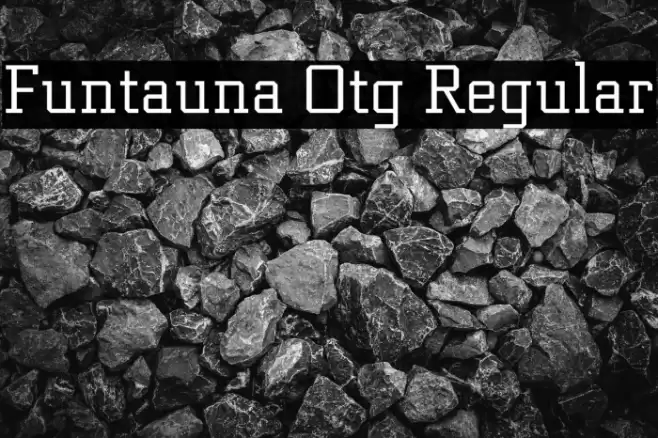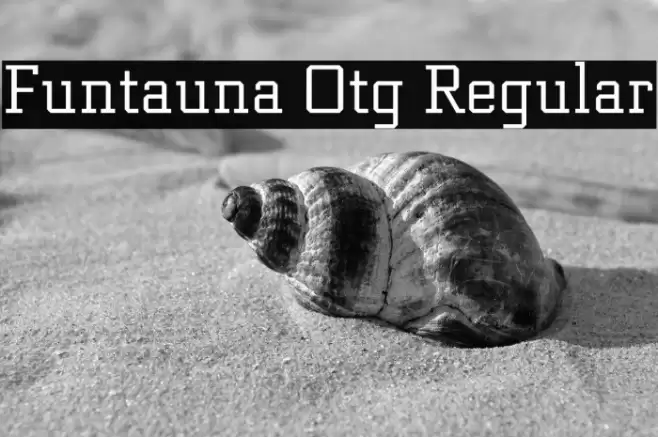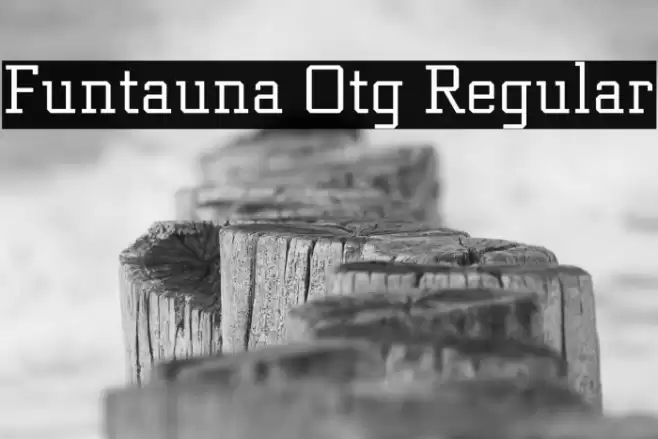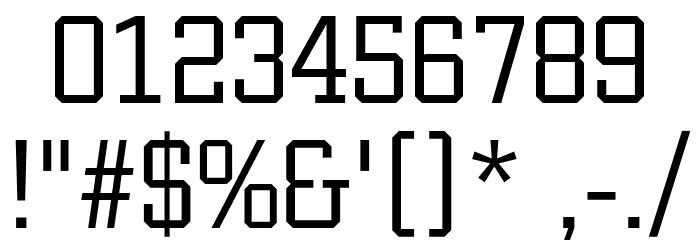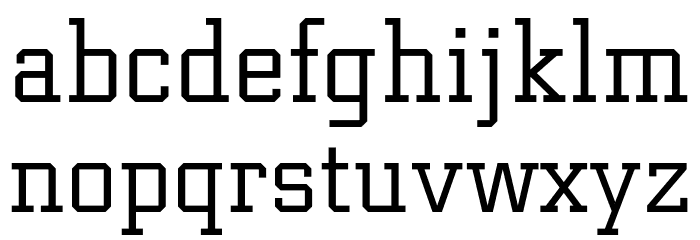
Funtauna Otg Regular Font
Funtauna Otg Regular Description
This font exhibits a structured and geometric design, characterized by its monospaced nature. Each character is evenly spaced, providing a uniform appearance that is both modern and technical. The uppercase letters are bold and commanding, while the lowercase letters maintain a consistent height and width, enhancing readability. The numerals are clear and distinct, making them suitable for data presentation. Special characters are well-defined, ensuring versatility in various contexts. The overall style is reminiscent of typewriter fonts, yet with a contemporary twist, making it suitable for both digital and print media.
A modern, monospaced font with a geometric and structured design from Serif fonts.
- Proposed Projects: Ideal for coding environments, technical documentation, data tables, and any project requiring precise alignment.
- Use Case: Coding, Technical documentation, Data presentation